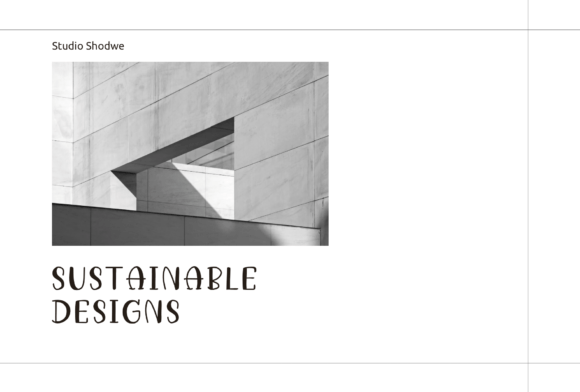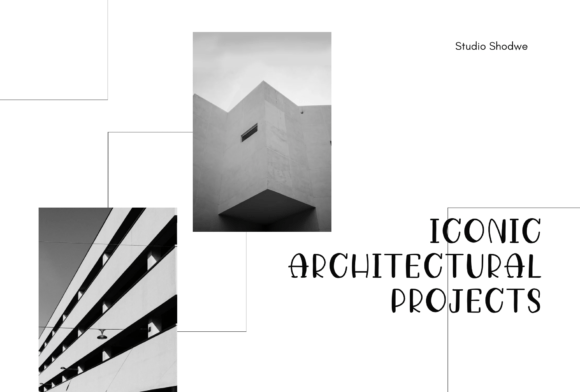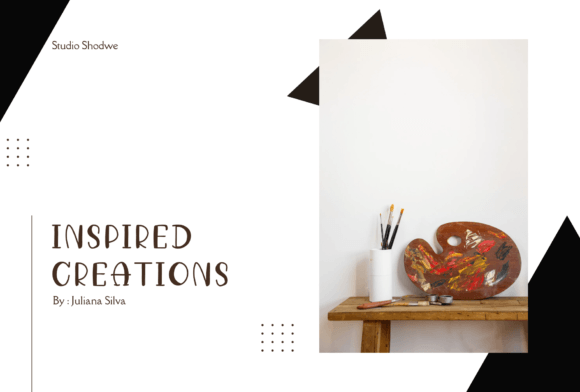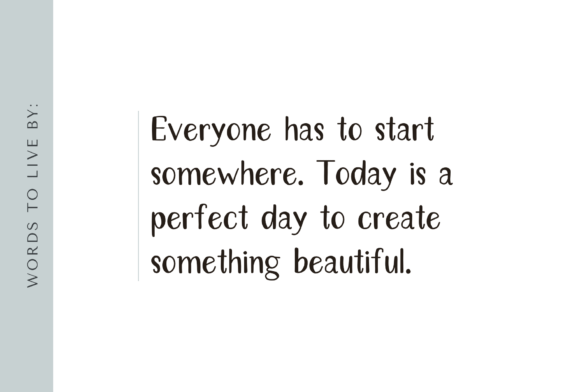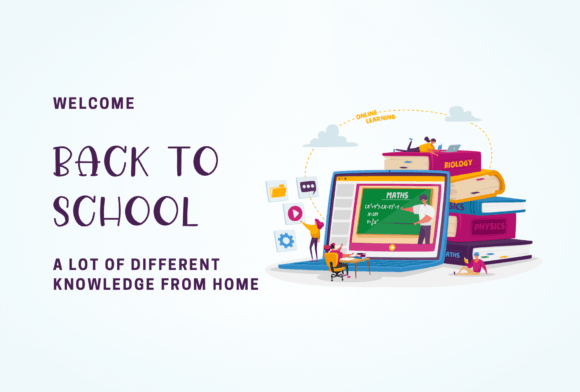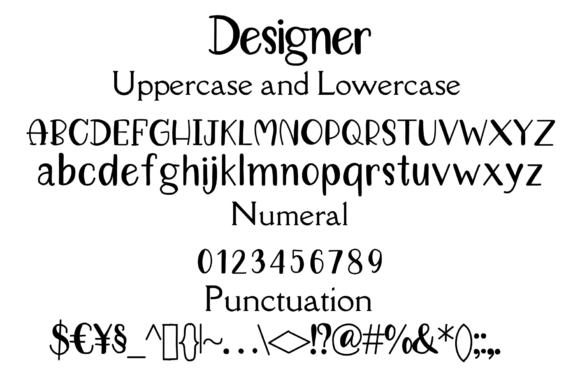
The Power of Personal Touch
Have you ever found yourself staring at a blank page, a blank canvas, or a blank screen, waiting for inspiration to strike? That’s where the magic happens, and for many creatives, it’s the moment when a great idea starts to take shape. For some, it’s the thrill of designing a new logo, while for others, it’s the satisfaction of crafting the perfect message on a special occasion.
Whatever your creative passion, one thing is certain: the right tools can make all the difference. That’s why we’re excited to introduce you to the Designer Font, a cool and unique handwritten font that’s perfect for adding a personal touch to your creations. Whether you’re designing cards, t-shirts, mugs, planners, or keychains, this font is sure to make your projects stand out.
As a designer, you know that the right font can elevate your work and make it truly unforgettable. The Designer Font is a valuable addition to any design toolkit, offering a fresh and stylish way to express your creativity and connect with your audience.
Designer Font Key Features
- Unique Character Set: The font features a unique set of glyphs, including ligatures, swashes, and alternates, adding a touch of elegance and sophistication to any design.
Designer Font Review
I’ve been using the Designer Font for a while now, and I have to say, it’s got some great features that make it a solid choice for designers like me. ✨ The font is highly customizable, with a wide range of styles and sizes to choose from. It’s also very easy to use, with a user-friendly interface that makes it simple to adjust settings on the fly.
- ✨ High level of customization: The font can be tailored to fit any design style or theme.
- ✨ Easy to use: The interface is intuitive and makes it simple to adjust settings.
- ✨ Wide range of styles and sizes: The font includes a variety of styles and sizes to choose from.
However, I do have to mention a few limitations:
- ⚠️ Limited compatibility: The font may not work well with older versions of software or operating systems.
- ⚠️ Limited support: While the font is generally well-designed, there may be some issues or bugs that arise.
- ⚠️ Limited updates: The font may not receive regular updates or new features.
Overall, I think the Designer Font is a great choice for designers who want a high level of customization and ease of use. However, it’s not perfect, and there are some limitations to be aware of.
Getting the Most Out of Designer Font
Here are a few tips to get the most out of Designer Font:
- Use Designer Font in combination with other fonts to create a visually appealing design.
- Take advantage of the font’s advanced features, such as ligatures and swashes.
Here are a few common use cases for Designer Font:
- Logo design: Designer Font is perfect for creating unique and eye-catching logos.